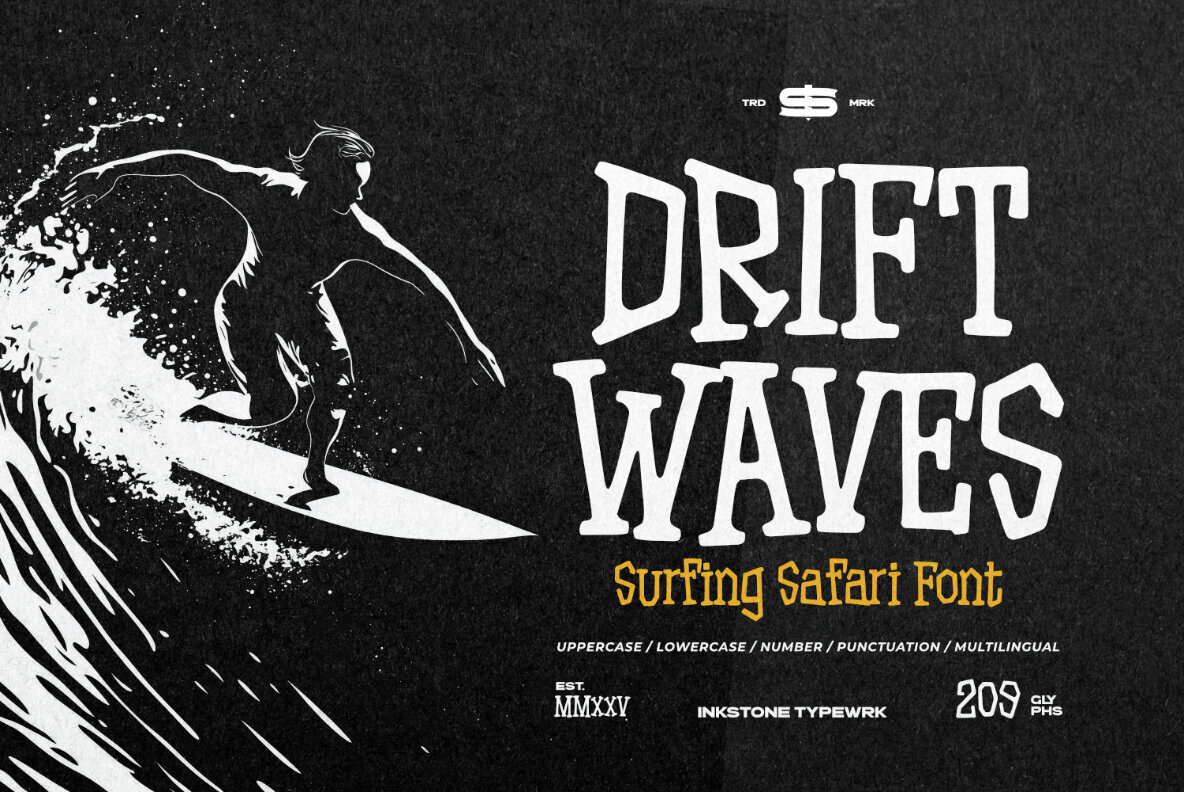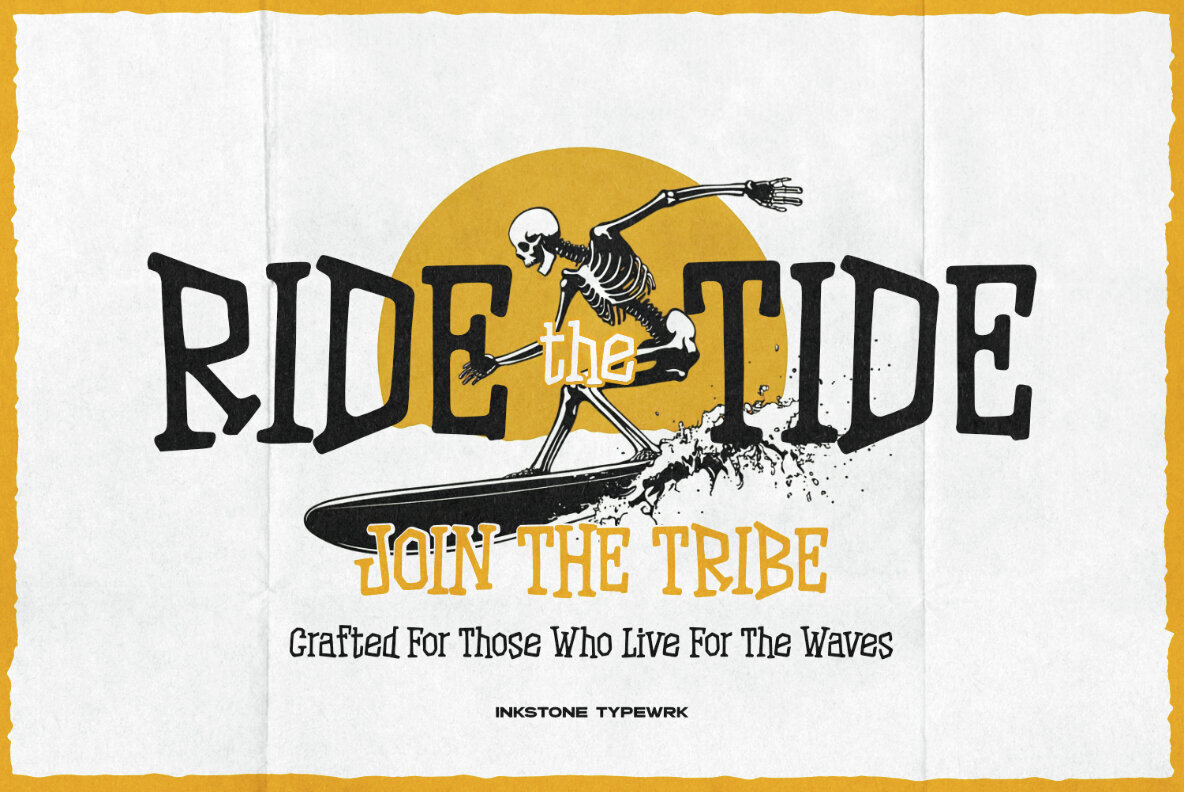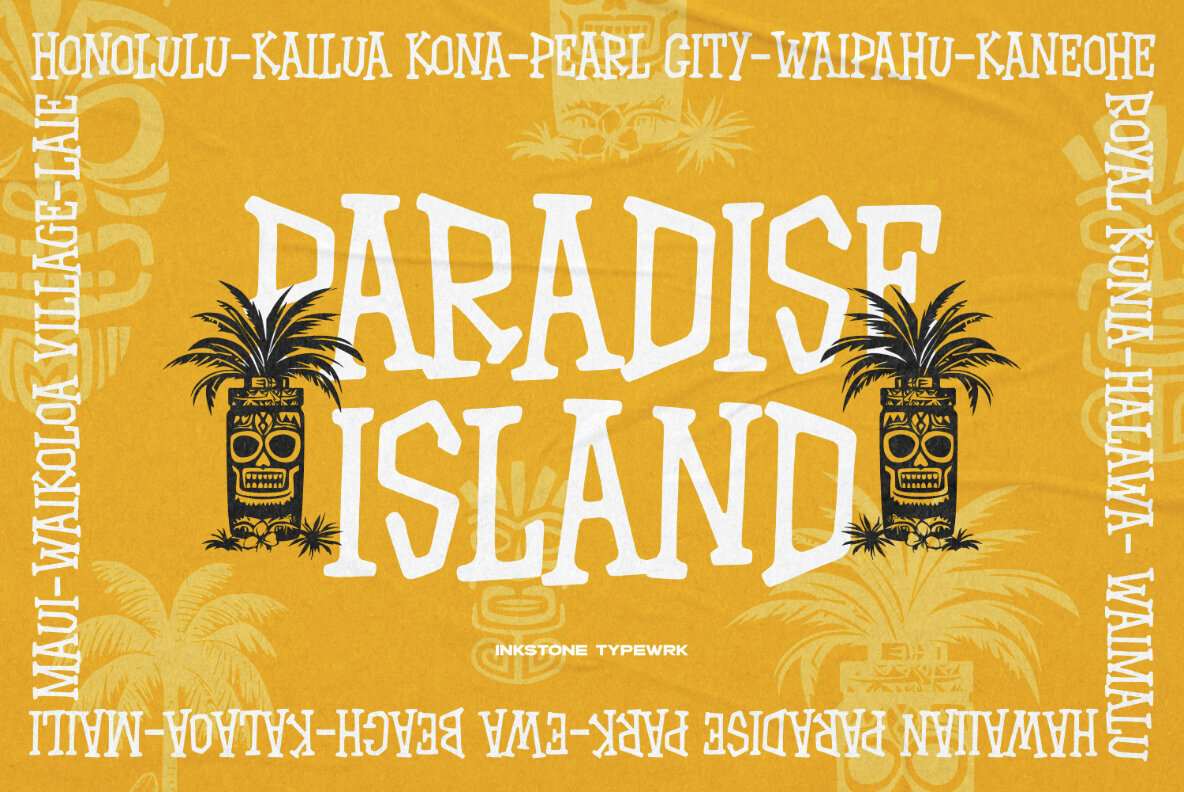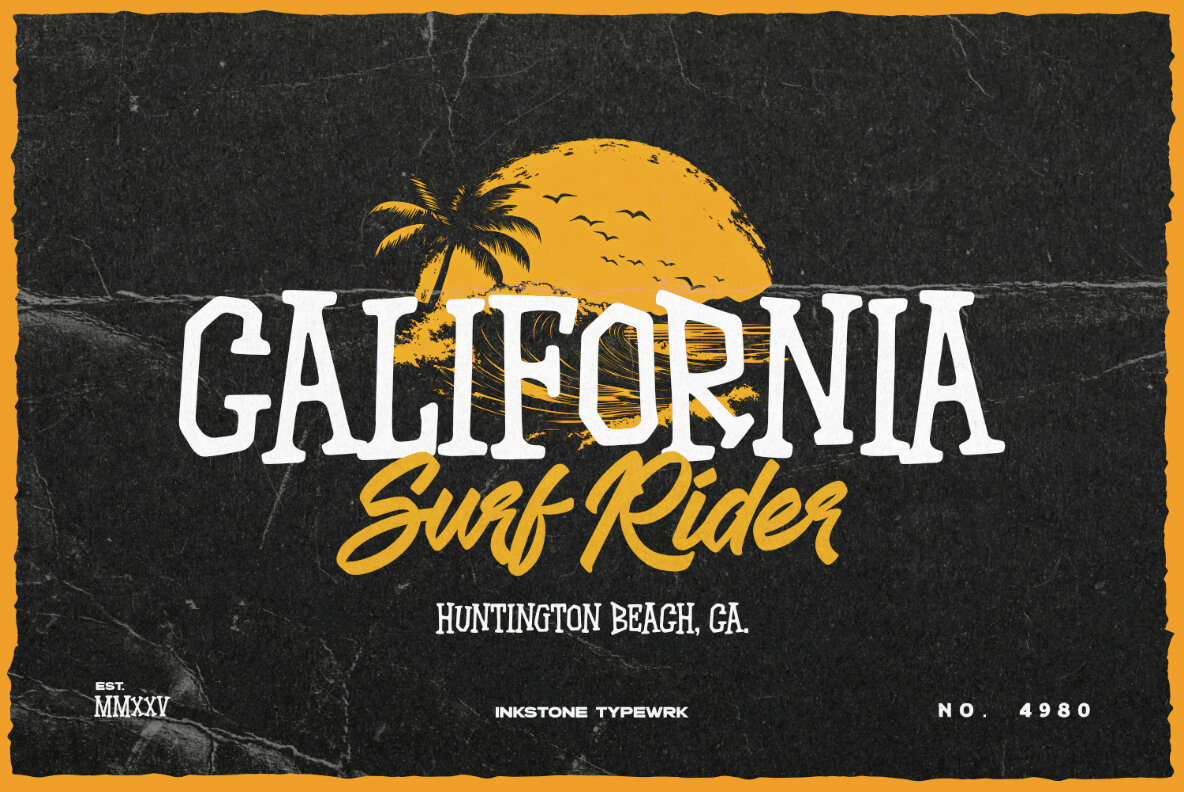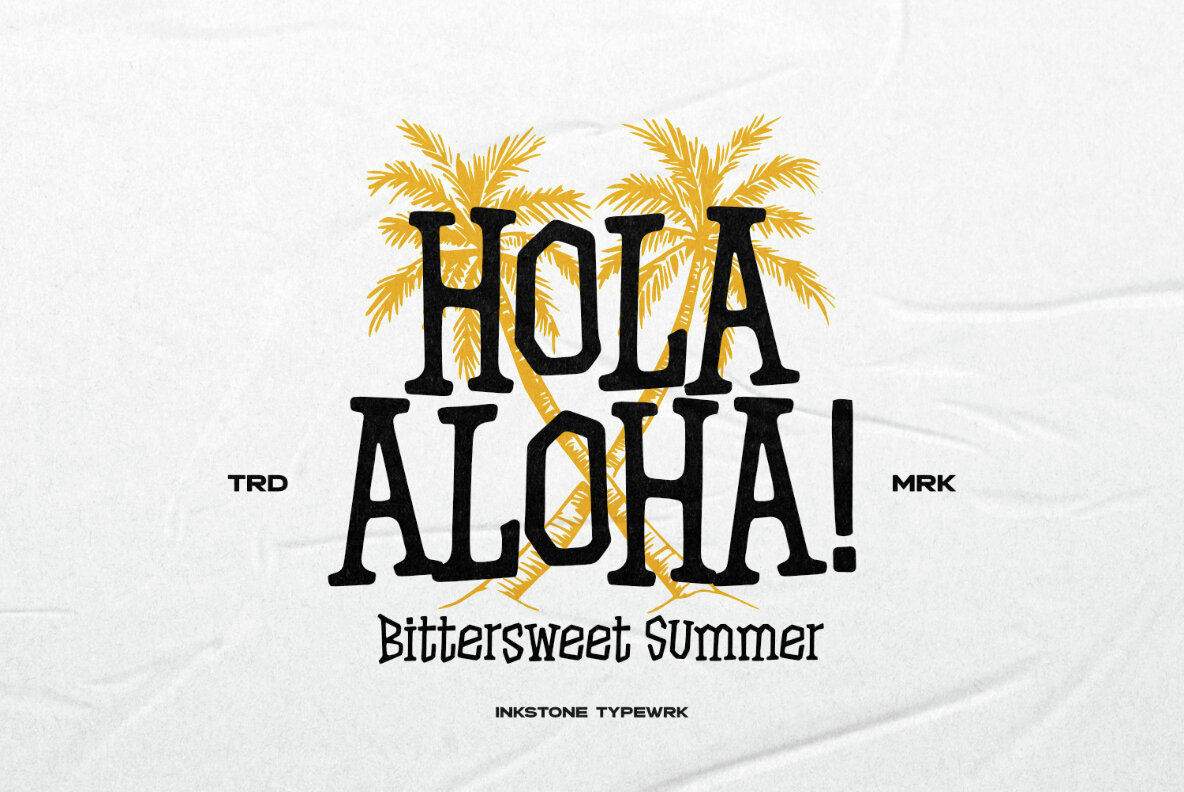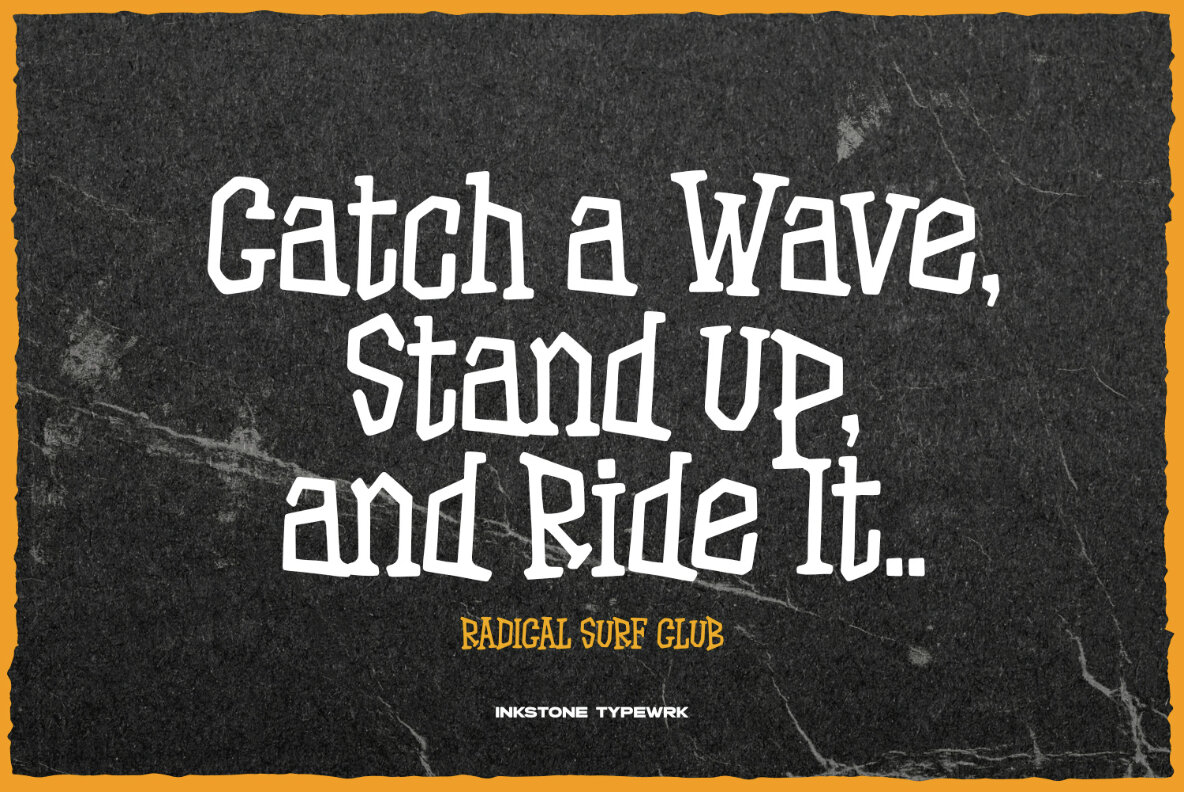
Drift Waves Font
Drift Waves
Ride the creative wave with Drift Waves, a hand-drawn font inspired by the free-spirited essence of surf culture and beachside living. Echoing the relaxed vibes of Hawaii, this typeface exudes the effortless flow and boldness of ocean swells. Featuring raw, handcrafted strokes, Drift Waves is ideal for vintage surf posters, festival merchandise, and designs that crave adventure. Perfect for branding beach clubs, surf shops, or tropical retreats, this font imbues your projects with genuine summer energy and a hint of island enchantment.Drift Waves: Surf Culture-Inspired Typeface